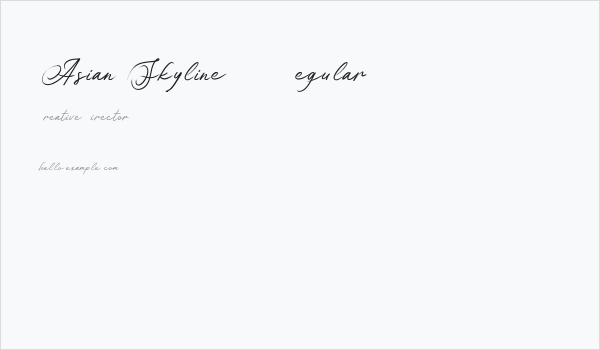
Asian Skyline DEMO Regular Font
Asian Skyline DEMO Regular Description
This font features an elegant, flowing script style with a hand-drawn appearance. The characters are connected, creating a seamless and fluid look that is both sophisticated and artistic. The uppercase letters are ornate, with sweeping curves and flourishes, while the lowercase letters maintain a consistent slant and smooth transitions. The overall design is reminiscent of traditional calligraphy, offering a modern twist with its dynamic and expressive strokes. The font exudes a sense of grace and refinement, making it ideal for projects that require a touch of elegance and personal flair.
| Overall Style | Elegant, Artistic |
| Proposed Projects | Wedding invitations, greeting cards, branding, and logo design. |